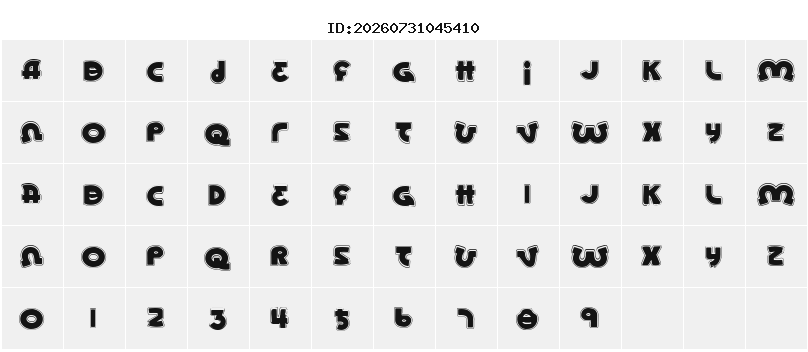
Lionel Academy.ttf
Lionel Academy Preview
About Lionel Academy.ttf
Lionel Academy.ttf is a modern, elegant sans-serif font designed for ultimate readability and visual harmony. Perfect for branding, headlines, web design, and print materials.